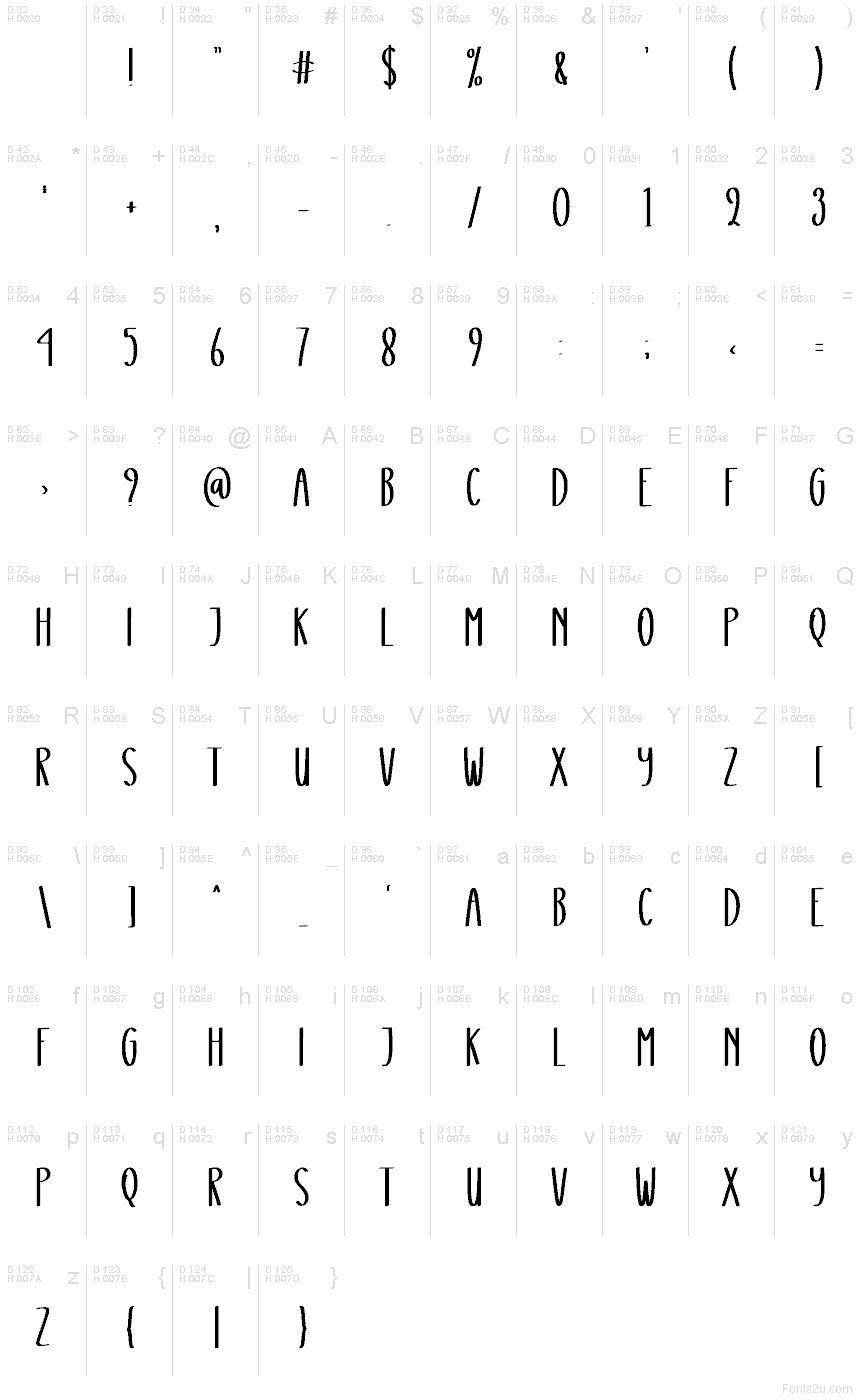
Digital Machine
Digital Machine font designed by Andi Moz is a handwritten condensed font whose letters appear tall, narrow, and geometric. This minimalistic typeface carries a modernist feel and a futuristic aesthetic that make it a remarkable choice for different projects.